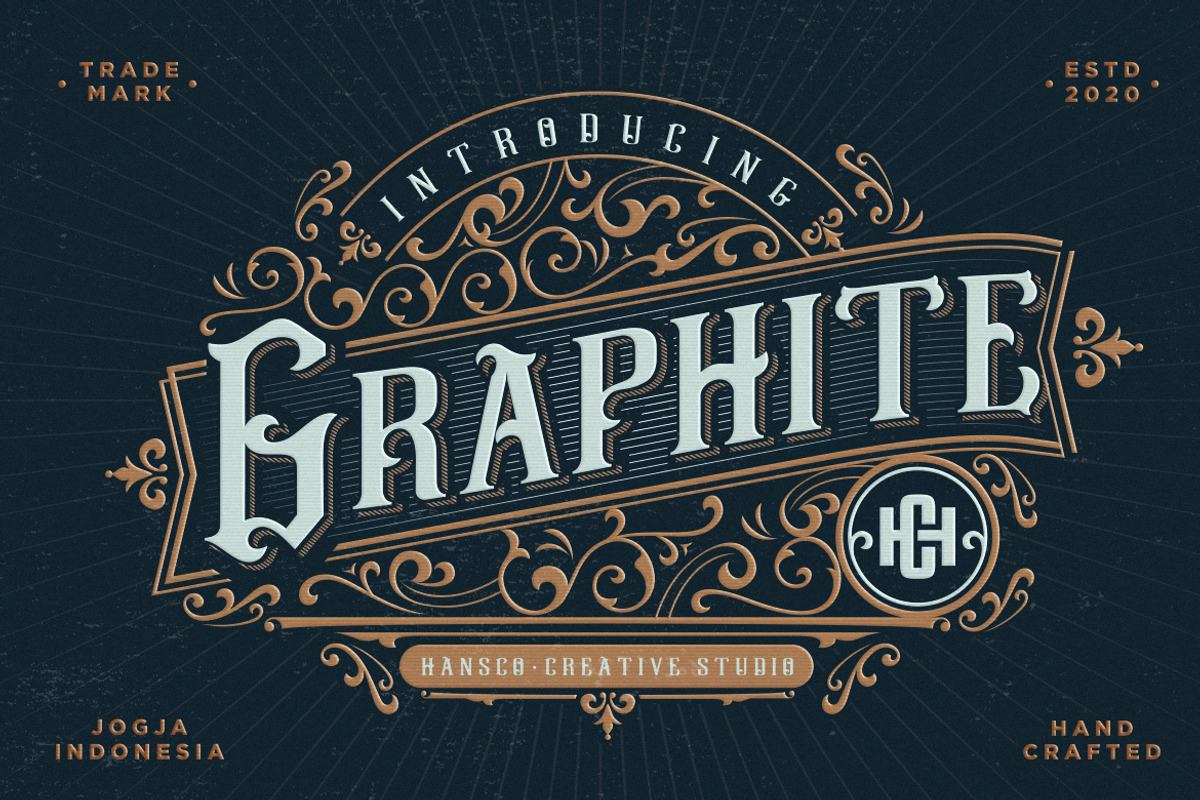
Graphite - Vintage Decorative Font Free Download
Please note, you must purchase this font for commercial use. However, you can easily download Graphite - Vintage Decorative Font Free Download for personal use and testing purposes. Graphite - Vintage Decorative Font is a beautifully crafted typeface that combines the elegance of vintage design with intricate decorative elements. Perfect for retro-themed projects, logos, posters, invitations, and branding, this font adds an artistic and nostalgic flair to any creative design. Whether you're working on a vintage brand identity, an event poster, or stylish packaging, Graphite - Vintage Decorative Font Free Download will bring a timeless and sophisticated touch to your work. Download Graphite - Vintage Decorative Font Free Download today and explore its full potential before opting for a commercial license.